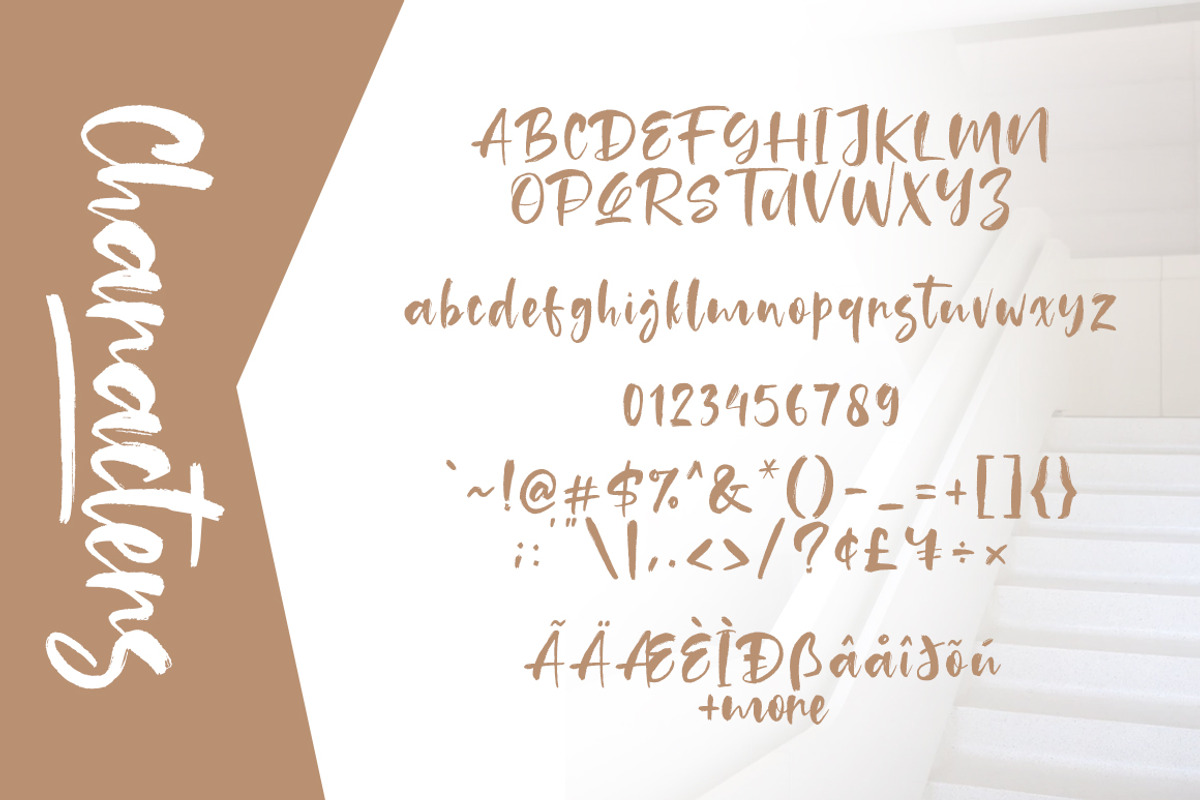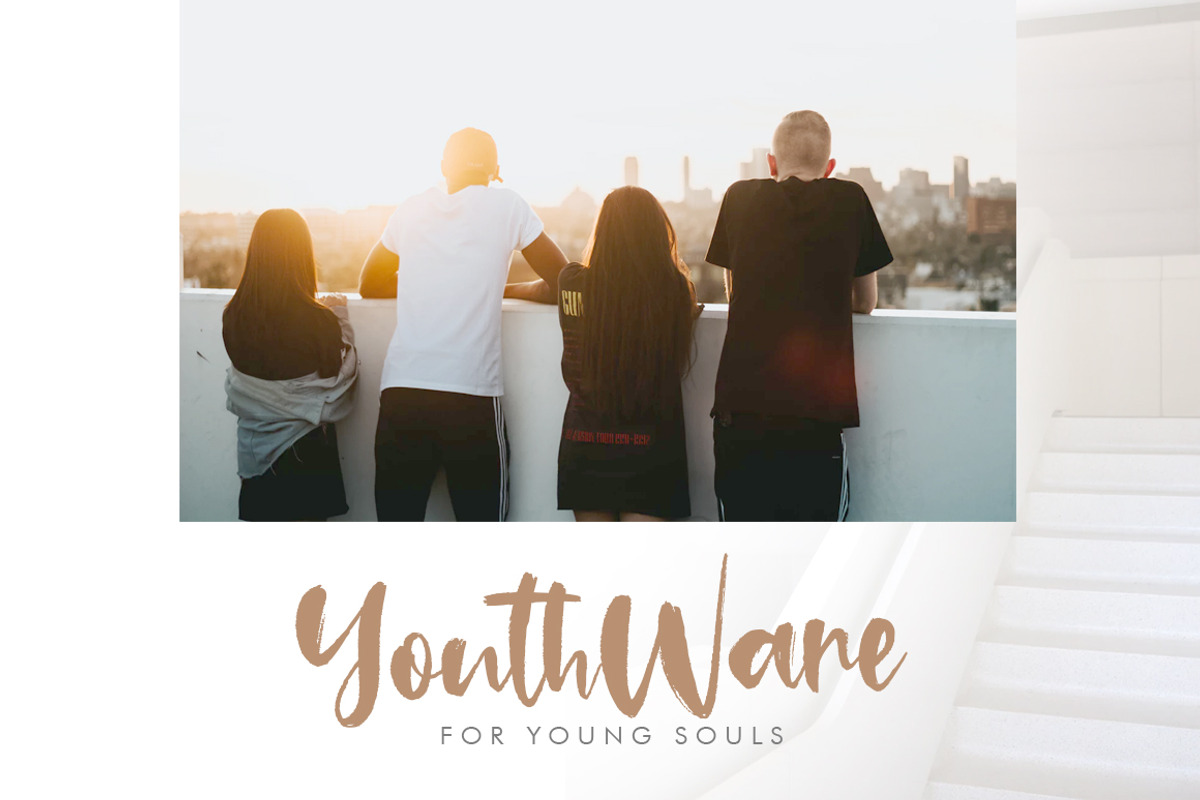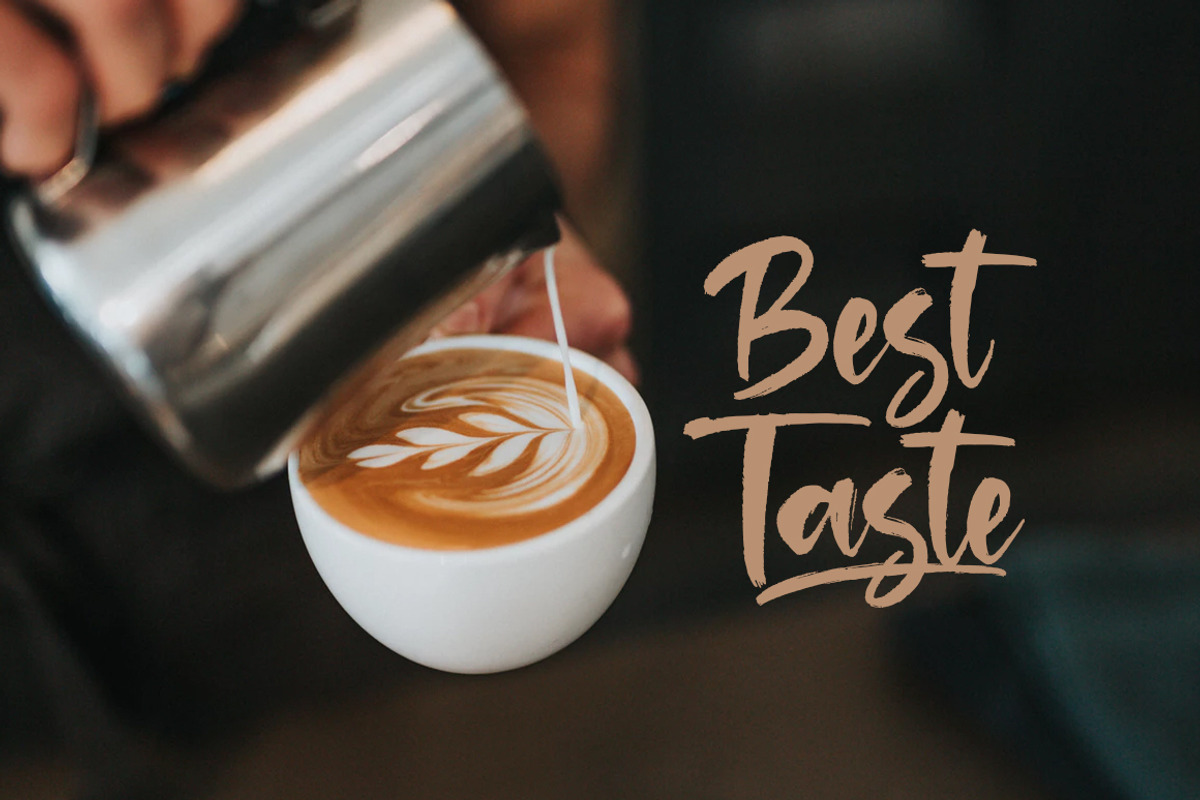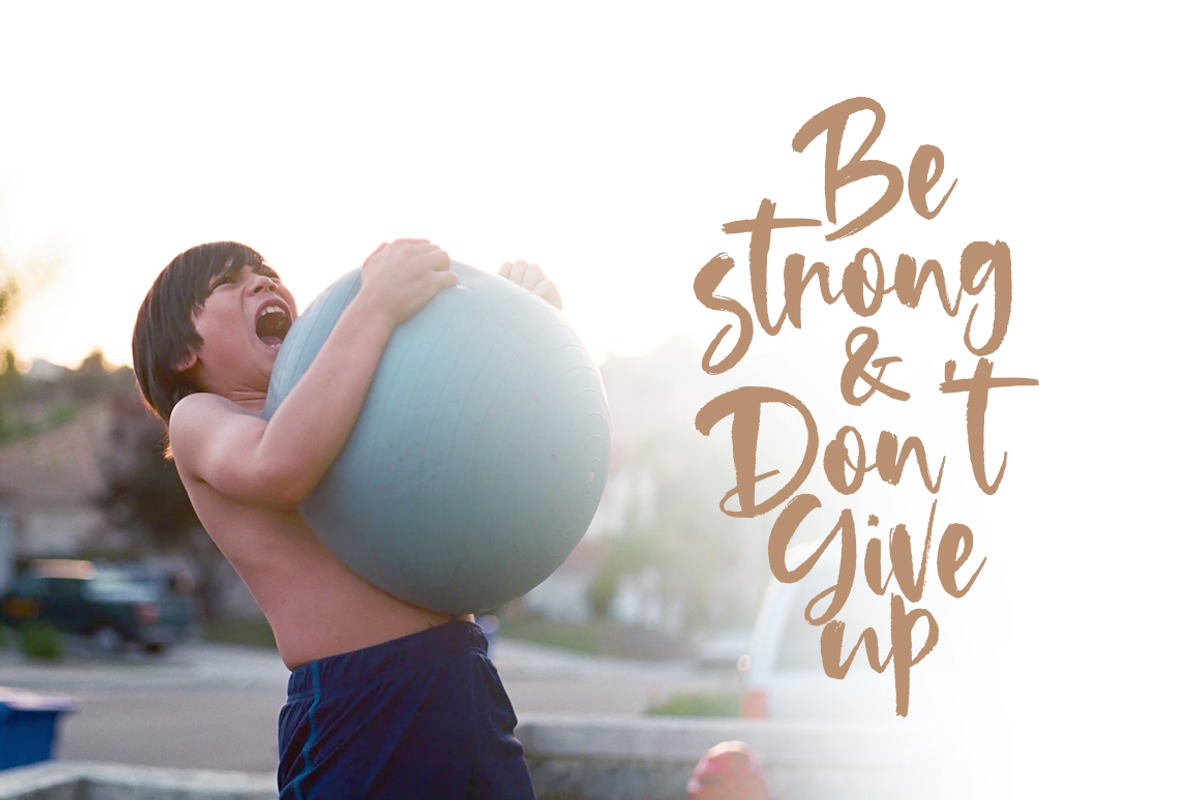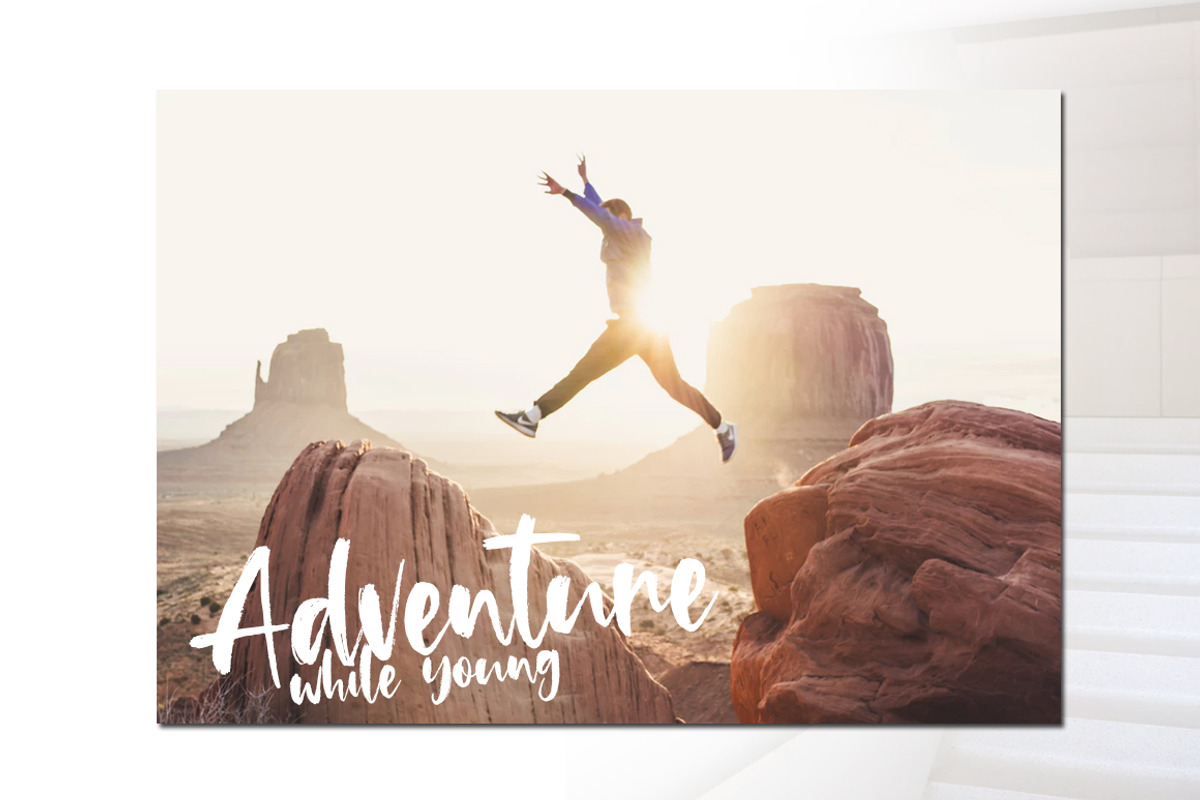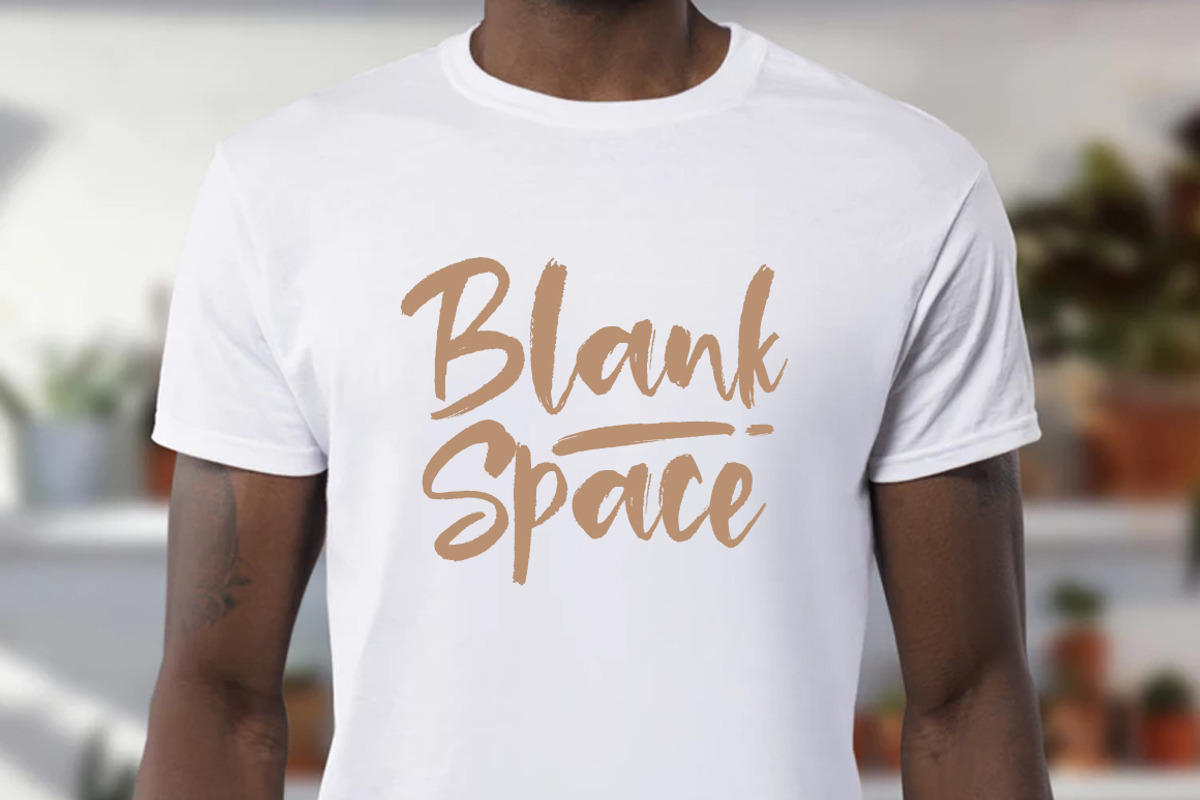
Tuckers Brush Font
The Tuckers is a fresh handwritten font brush, elegant and vintage feel character set. The Tuckers font includes a full set capital and lowercase letters, as well as multi-lingual support, currency figures, numerals, & punctuation.
- The Tuckers font includes a full set capital and lowercase letters, as well as multi-lingual support, currency figures, numerals, & punctuat
Why Tuckers Brush Font is worth a look
Tuckers Brush Font by khurasan fits naturally into Branding, posters, packaging, typography.